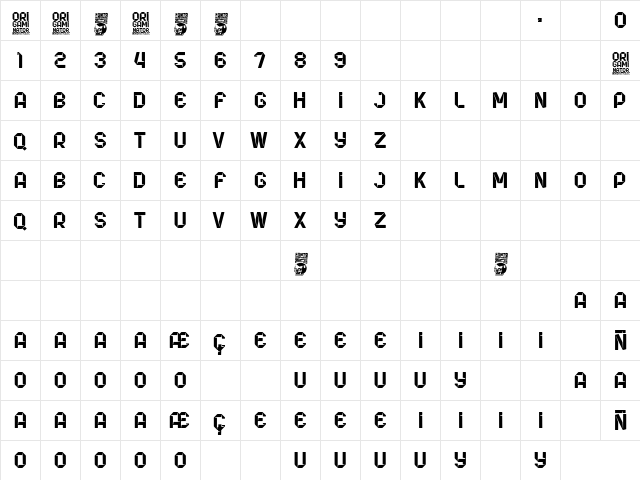
Origaminator Regular Font Preview
Origaminator Regular
Origaminator Regular Font Details
| Designer | Woodcutter Manero |
Design Context for Origaminator Typeface
Origaminator takes a measured approach to typography — its balanced proportions and neutral character make it a reliable workhorse for both digital and print work.